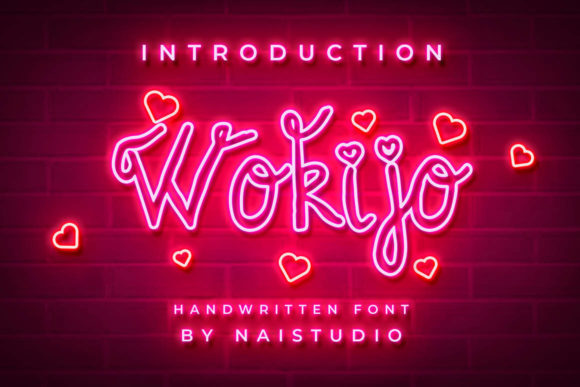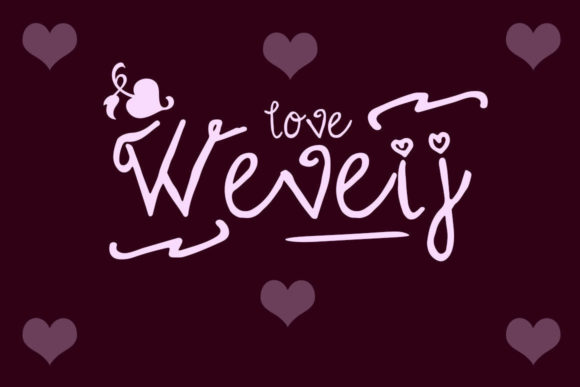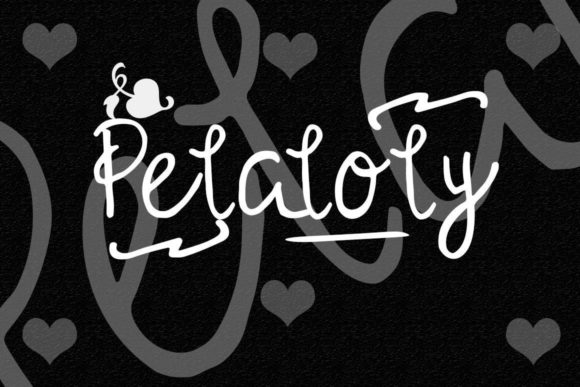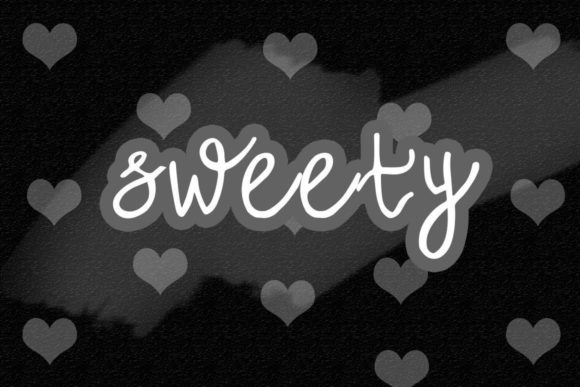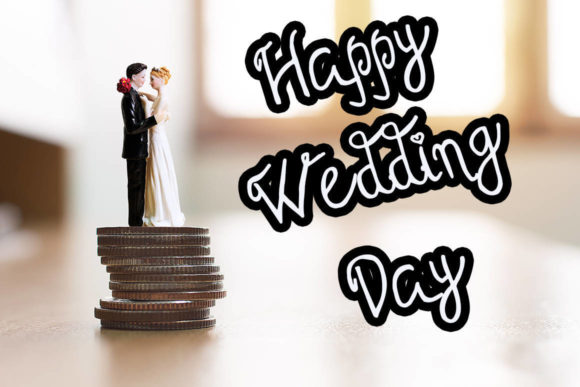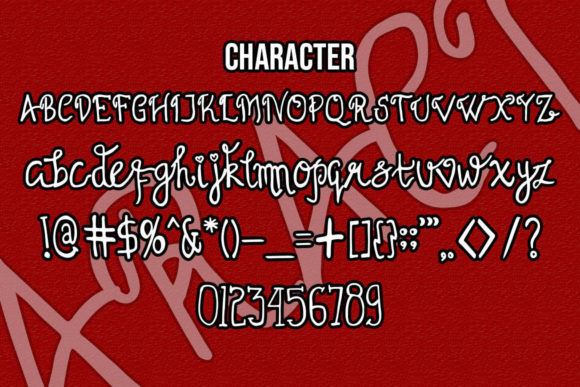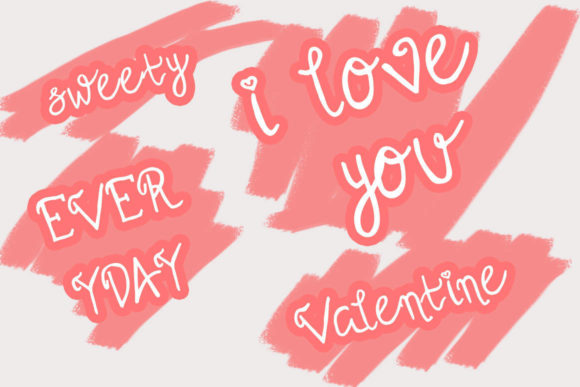
Wokijo Font
About Wokijo Font
Wokijo is a delightful and quirky handwritten font that adds a unique charm to various design projects. Its stylish appearance makes it a perfect fit for a wide range of applications. Here are some creative ideas to make the most of Wokijo’s stylish and quirky look:
1. Wedding Invitations: Create fun and playful wedding invitations that reflect the couple’s personality and style.
2. Thank You Cards: Design adorable and heartfelt thank you cards that leave a lasting impression.
3. Quotes and Typography: Turn inspirational quotes and phrases into eye-catching graphics with Wokijo’s quirky touch.
4. Greeting Cards: Craft charming and whimsical greeting cards for birthdays, anniversaries, and other occasions.
5. Logos and Branding: Use Wokijo to design logos and branding materials for businesses with a playful and stylish image.
6. Business Cards: Create memorable and creative business cards that stand out from the crowd.
7. Social Media Graphics: Elevate your social media presence with stylish and quirky graphics featuring Wokijo.
8. Children’s Books: Design playful and captivating book covers and illustrations for children’s books.
9. Craft Projects: Incorporate Wokijo into DIY craft projects like personalized labels, gift tags, and more.
10. Product Packaging: Add a touch of whimsy to product packaging with Wokijo’s quirky letterforms.
11. Blog Headers: Use Wokijo for blog headers and graphics to give your blog a fun and stylish look.
12. Event Signage: Create eye-catching event signage with Wokijo for parties, fairs, or pop-up shops.
13. T-shirt Designs: Design unique and trendy t-shirt graphics with Wokijo’s quirky appeal.
14. Party Invitations: Craft lively and fun invitations for birthday parties, baby showers, and other celebrations.
15. Menu Boards: Use Wokijo to design playful and stylish menu boards for cafes and restaurants.
16. Posters and Flyers: Create attention-grabbing posters and flyers with Wokijo’s stylish and quirky touch.
17. Stationery Design: Design personalized stationery sets with Wokijo’s unique lettering.
18. Crafty DIY Projects: Incorporate Wokijo into various crafty DIY projects like scrapbooking and journaling.
19. Art Prints: Create adorable and artistic art prints featuring Wokijo’s quirky letterforms.
20. Party Decorations: Use Wokijo to design playful and festive party decorations like banners and bunting.
Wokijo’s stylish and quirky handwritten style brings a sense of fun and whimsy to any design. Embrace its unique charm, and let it transform your projects into eye-catching and memorable creations. With Wokijo as your go-to handwritten font, your designs are sure to stand out and captivate your audience with its playful appeal!